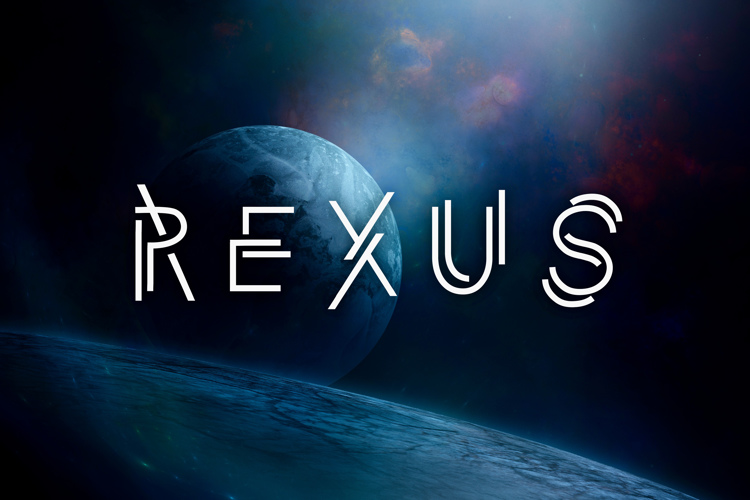
rexus Font
A futuristic font, inspired by space, minimalism and general relativity. The full version consists of uppercase, lowercase, numbers, punctuation and Greek letters.